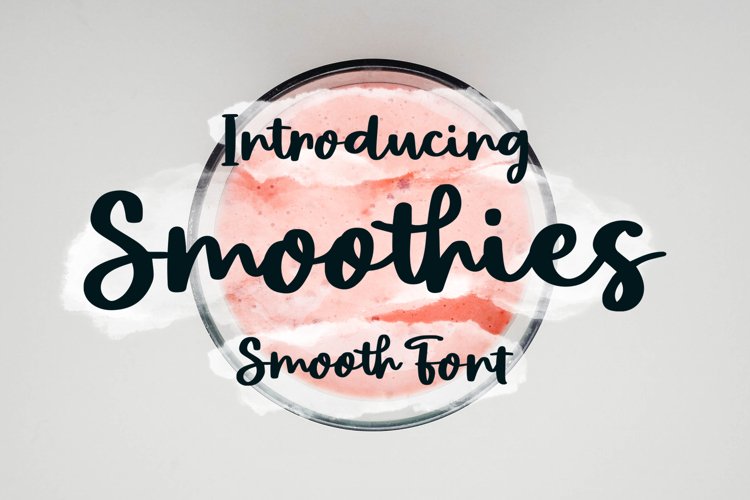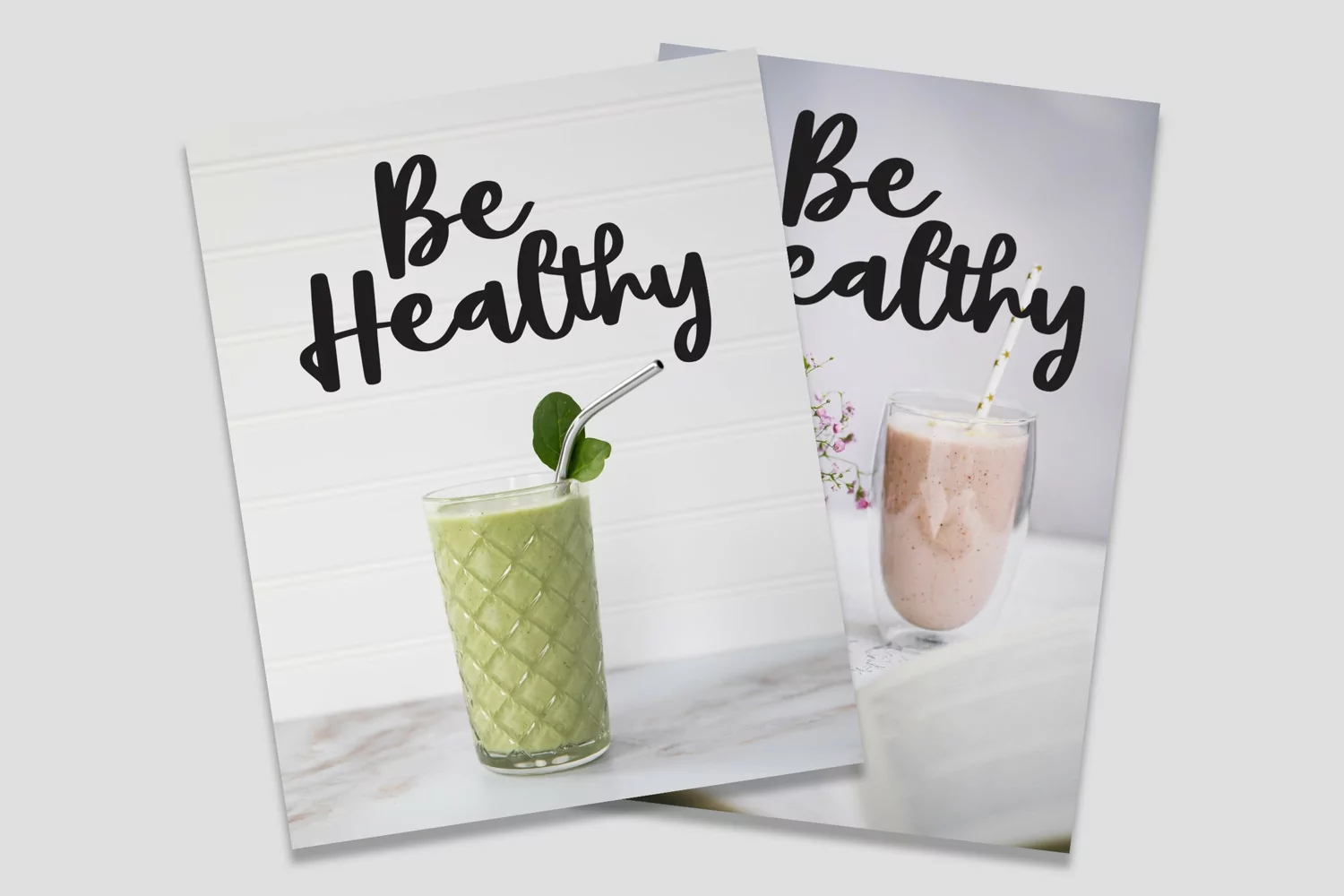
Smoothies - Smooth Font that contain lowercase, uppercase, symbol, and also support multi language. There’s a lot ligatures in this font. This Font also comes with ligatures, alternates and many more. this font suitable for fashion, branding, catalog and other design what you want.